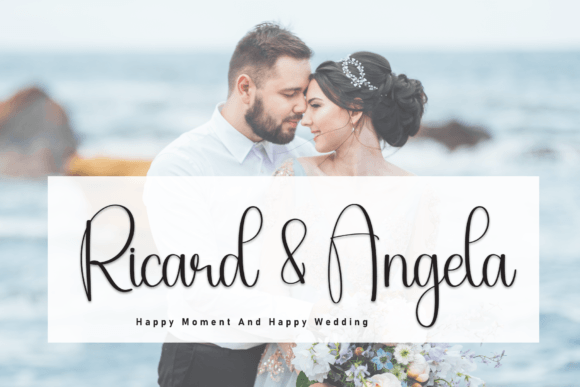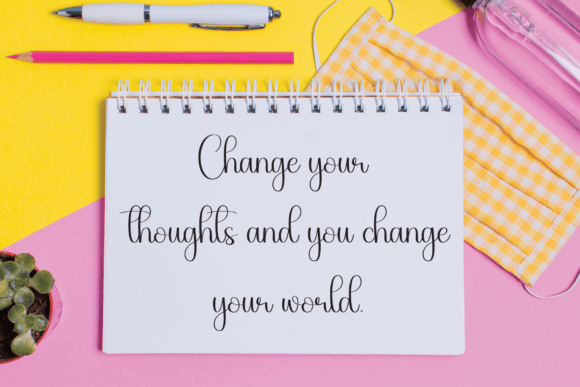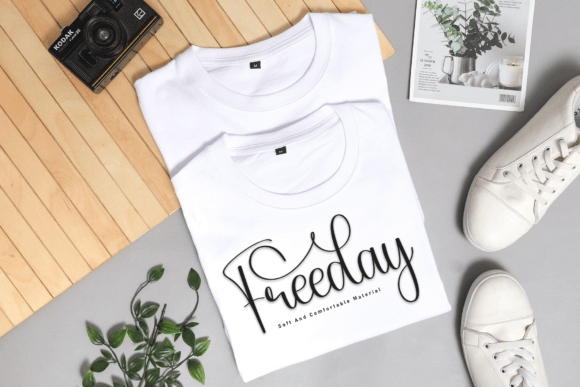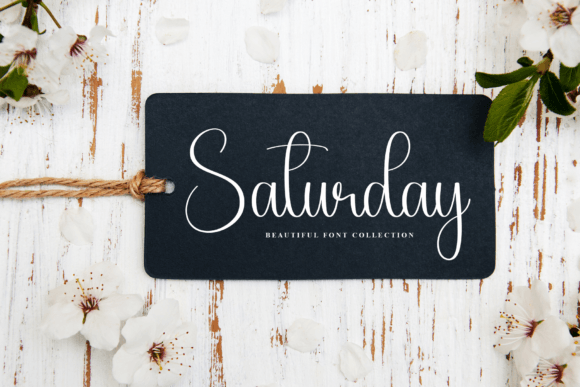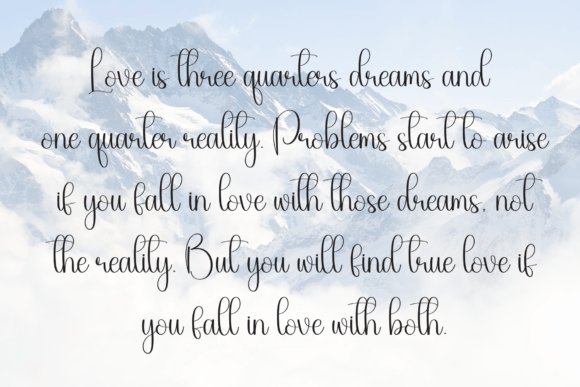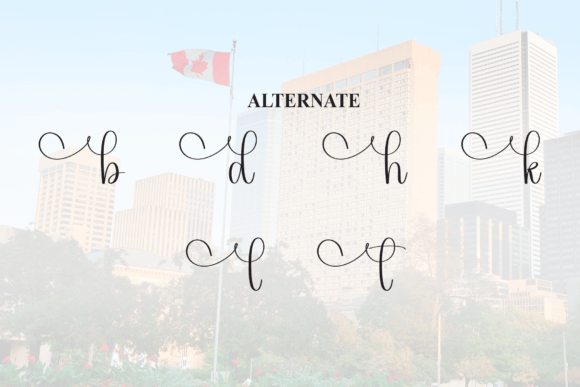
The Elegance of Canada Font: A Designer’s New Best Friend
I’ll never forget the time I was working on a wedding invitation project, and my client asked for a font that was “elegant, yet playful.” I scoured the internet, tried out dozens of fonts, but nothing seemed quite right. That was until I stumbled upon Canada Font. It’s a stylish and incredibly elegant script font that has become a staple in my design toolkit. In this article, I’ll share my experience with Canada Font, its features, and how to make the most of it in your designs.
An Honest Review of Canada Font
• ✨ Elegant and sophisticated, perfect for high-end designs
• 💫 Beautifully crafted with intricate details and swashes
• 🎨 Versatile and can be used for a variety of design projects, from wedding invitations to logos
While Canada Font is an excellent choice for many designs, there are a few things to keep in mind:
• 🤔 Some characters may not work well in all contexts, such as all-caps headings
• ⚠️ May not be suitable for body text or long blocks of text due to its script nature
The Backstory of Canada Font
Canada Font was designed with the intention of creating a beautiful, elegant script font that would add a touch of sophistication to any design. The designer aimed to craft a font that was both highly legible and visually stunning, with intricate details and swashes. While the exact inspiration behind Canada Font may be unknown, it’s clear that the designer succeeded in creating a truly special font.
Q: What type of designs is Canada Font best suited for?
A: Canada Font is perfect for designs that require a touch of elegance and sophistication, such as wedding invitations, thank you cards, quotes, greeting cards, logos, and business cards.
Q: Is Canada Font suitable for body text or long blocks of text?
A: While Canada Font is highly legible, it’s not recommended for body text or long blocks of text due to its script nature. It’s best used for headings, titles, or short paragraphs.